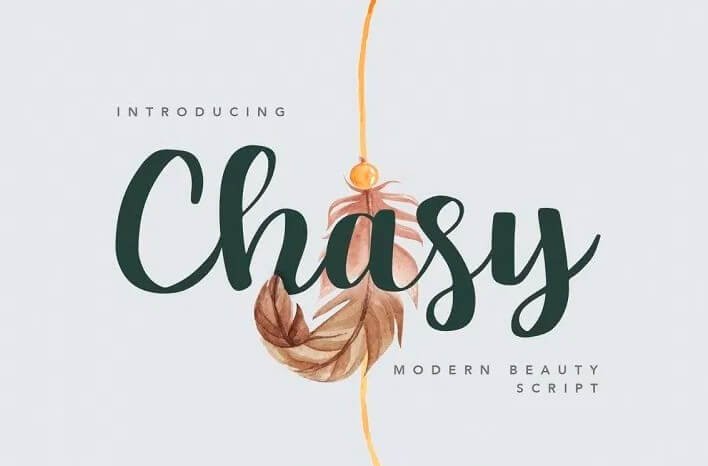
Introducing the finest stylish scripted and calligraphic typeface that exudes elegance and charm. Meet Chasy Beauty Calligraphy Font, ideal for creating covers, advertising designs, presentations, and logos.
This font can be used as pairing and for tiling as well. For pairing purposes, we suggest you to used with the combination of audrey font. Both fonts combine together and deliver you the best product.
The Chasy Beauty Calligraphy Font is the famous and amazing typeface which was product of the combination Peter Draw Font.